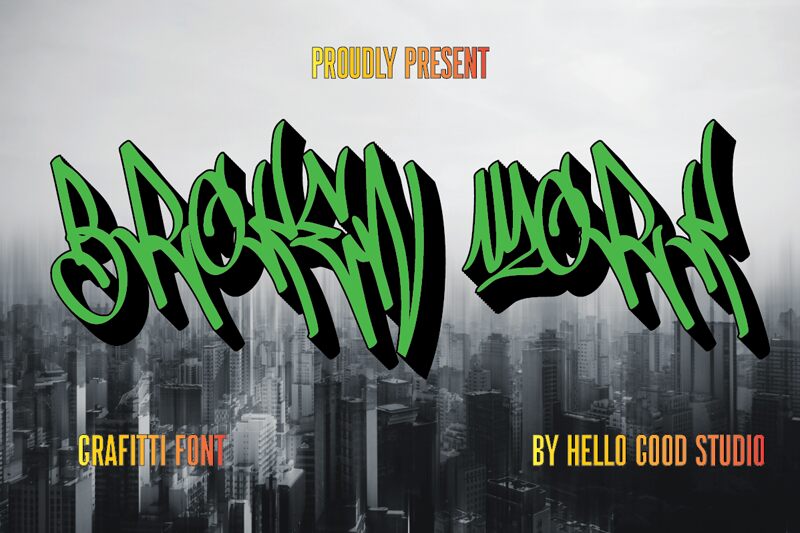
Broken Work is a fun, exciting, and stylistic graffiti brush font available in OTF format. It can add edgy effects to designs or give it a retro-vintage touch.
This font was made by Hello Good, a studio that is inspired by the urban culture and the street art subculture and creates graffiti, streetwear-related art projects. They bring a new free font to share with their community, a font that is perfect for headlines and texts in advertisements, posters, music albums, and comics. This font can also be used in print and web, and it is perfect for logo design, packaging, branding projects etc.
Broken Work
hello good studio